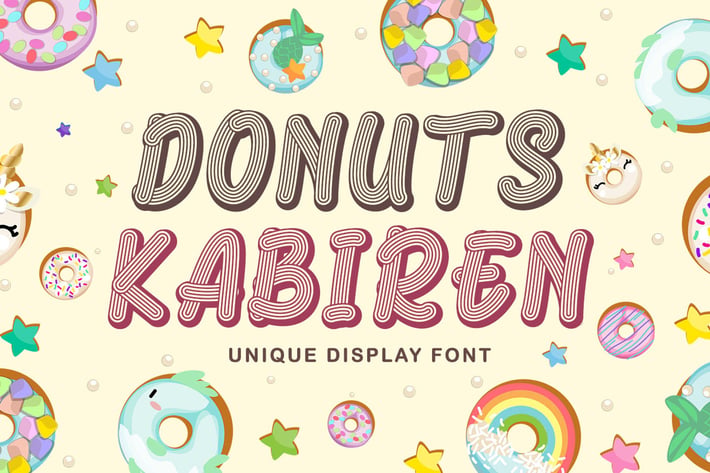
Donuts Kabiren - Playful Display Font
Donuts Kabiren is a playful display font. This enchanting font will turn any creative idea into a true standout.
Donuts Kabiren would be perfect for logos & branding, photography, watermark, social media posts, advertisements, invitation, product designs, label, stationery, product packaging, special events or anything that need handwriting taste.